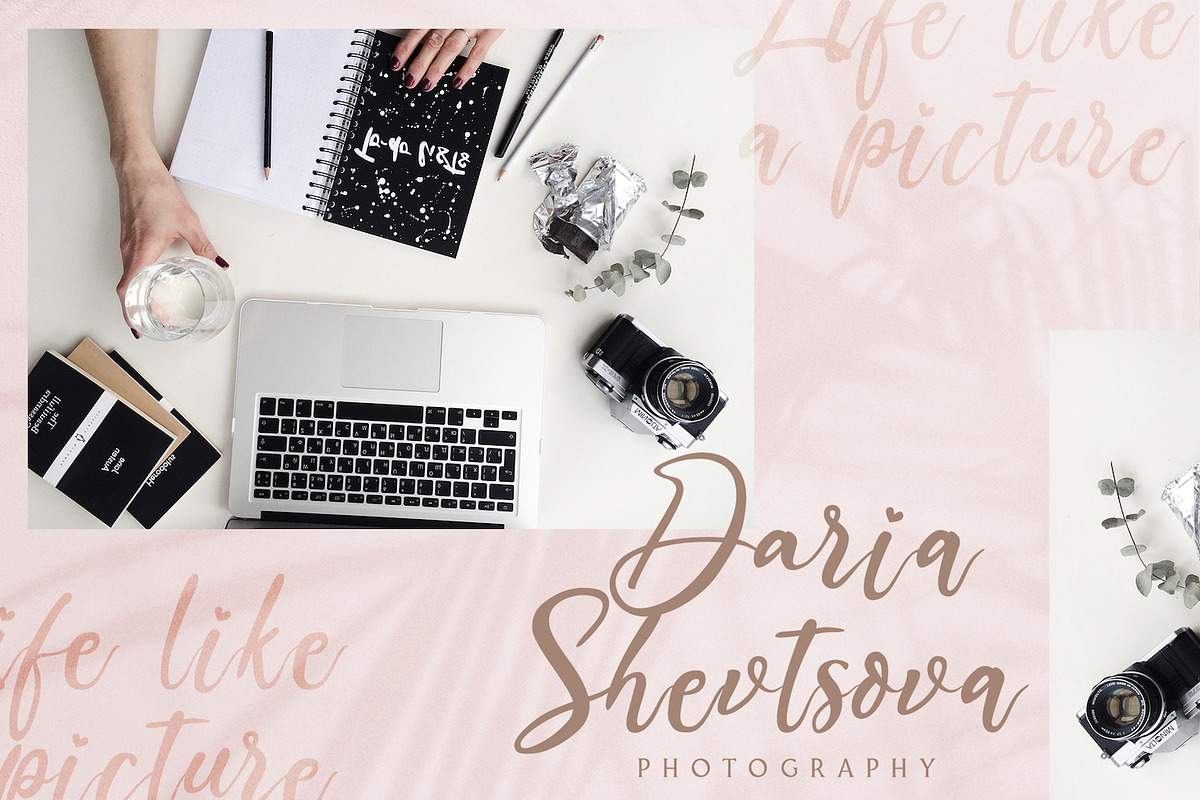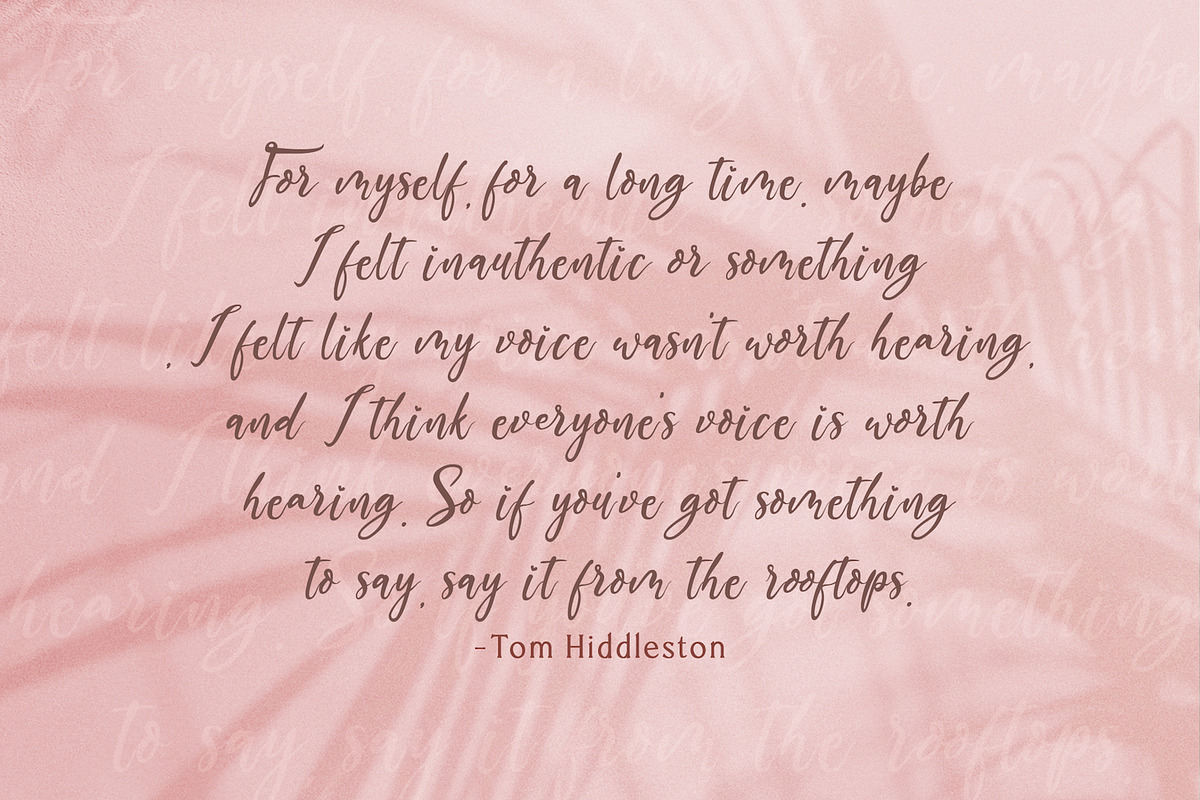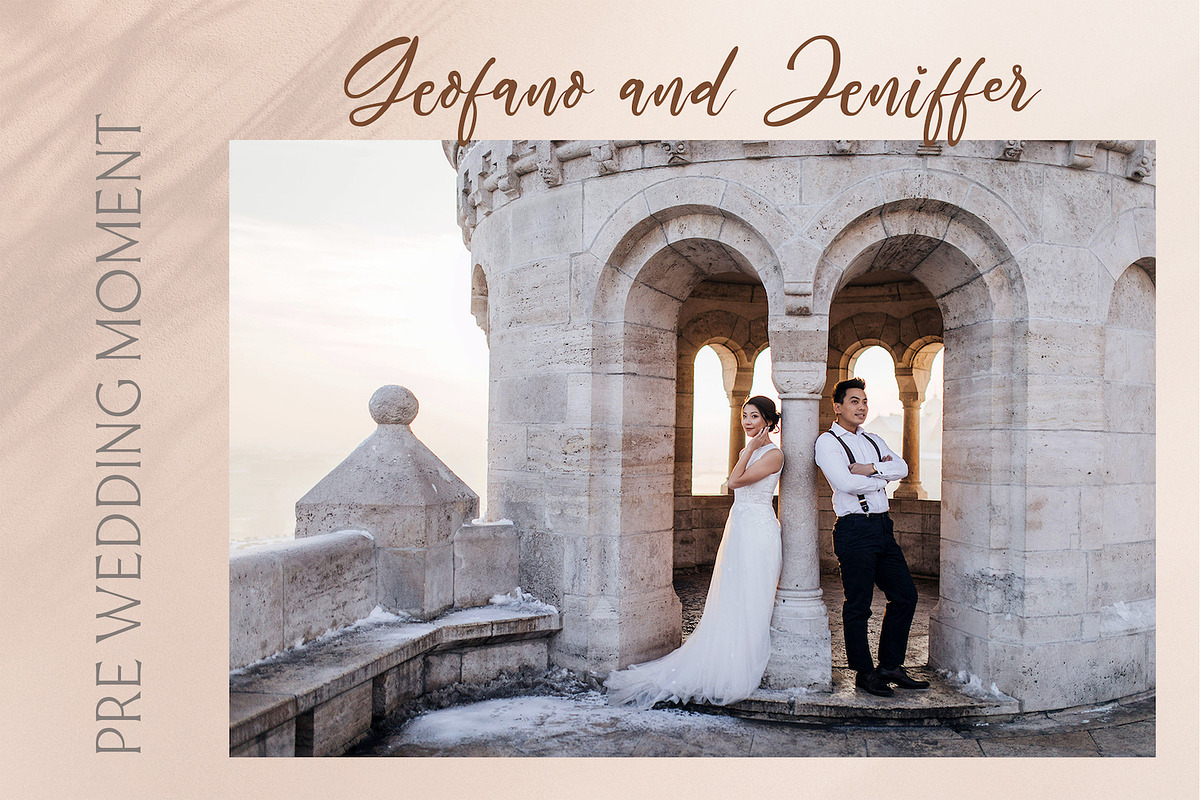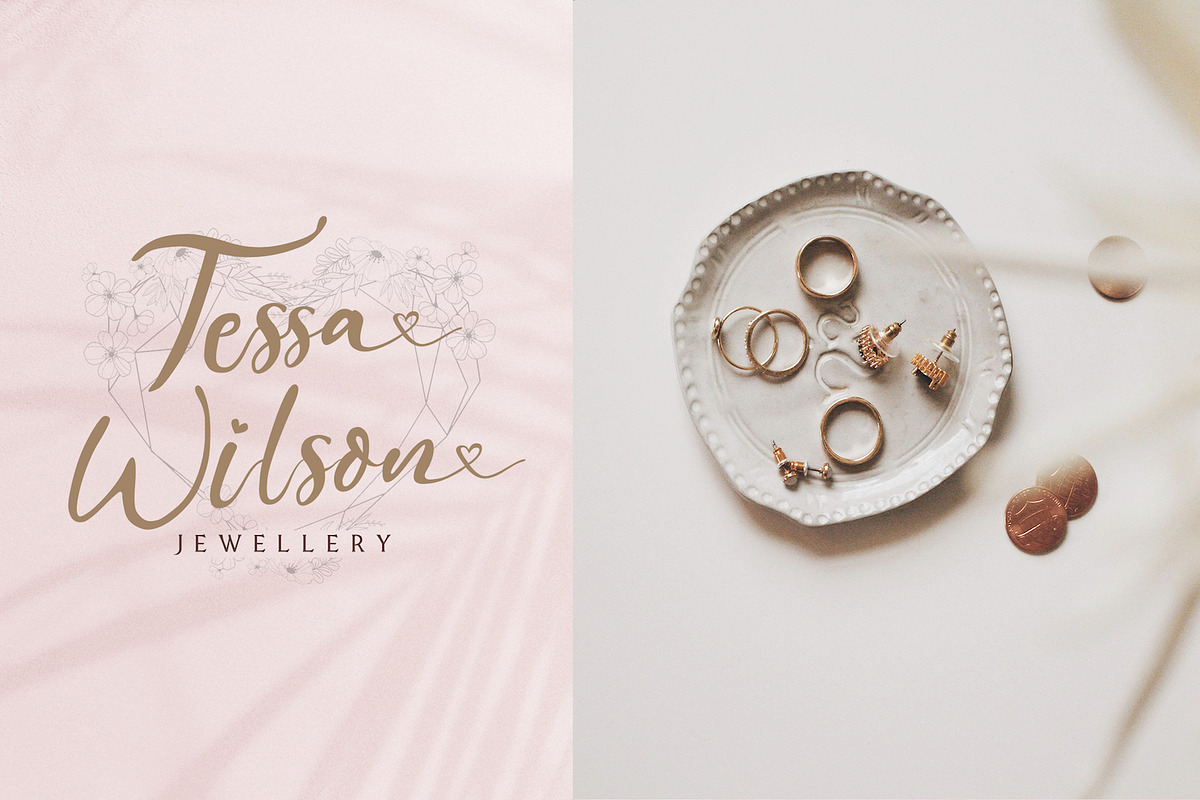
The Austin - Handwritten Script Font
Introducing The Austin - Handwritten Script Font
The Austin is a Modern Script Font with Calligraphy Style. The Austin font was created with authentic handwritting brush pen. This font is perfect for fashion brand, wedding invitation, business card, logo brand, signature, and for your any calligraphy projects.
Why The Austin - Handwritten Script Font is worth a look
The Austin - Handwritten Script Font by StringLabs fits naturally into Branding, posters, packaging, typography.